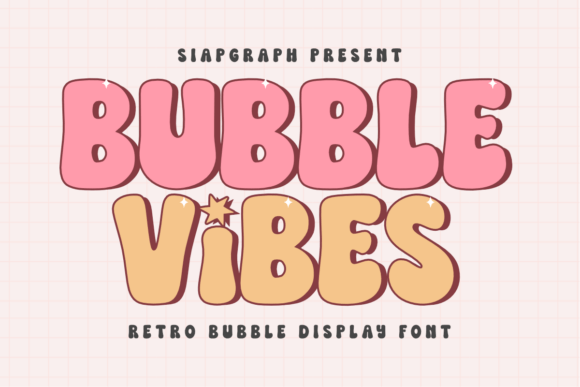
Get Ready to Groove with the Bubble Vibes Font
Do you ever find yourself stuck in a creative rut, yearning for a spark of inspiration to breathe new life into your designs? For many of us, a dash of retro flair can be just the ticket to reigniting our passion and imagination. That’s where the enchanting Bubble Vibes Font comes in – a captivating bubble retro display font that effortlessly transports your designs back to the vibrant and cheerful era of the 60s and 70s.
With its plump, rounded, and wonderfully soft letterforms, the Bubble Vibes Font creates a delightful three-dimensional effect, making your text pop with an infectious sense of fun and nostalgia. This versatile font is perfect for infusing a dose of groovy energy and playful charm into a wide array of creative projects, from stickers and planner elements to eye-catching t-shirt designs and personalized products.
Bubble Vibes Font Key Features
- Font Family: Bubble Vibes Font is a sans-serif font family designed to evoke a playful and bubbly atmosphere.
- Character Count: The font family includes a wide range of characters, including uppercase and lowercase letters, numbers, and punctuation marks.
- Unique Characteristics: The font features a unique blend of rounded and geometric shapes, creating a fun and playful feel that is perfect for creative and whimsical designs.
Bubble Vibes Font Review
I recently had the chance to work with the Bubble Vibes Font, and I must say it’s an interesting choice. Here’s my honest take on what works and what doesn’t.
- Casual and playful vibe: The font’s bubbly design makes it perfect for creating a fun and relaxed atmosphere in your designs.
- Easy to read: Despite its playful nature, the font is surprisingly easy to read, even at smaller font sizes.
- Highly customizable: The font comes with a range of styles and weights, making it easy to find the perfect fit for your project.
- Not ideal for formal designs: The font’s playful design may not be suitable for formal or professional projects.
- Limited versatility: While the font is highly customizable, it may not be the best choice for complex or technical content.
Overall, I’d say the Bubble Vibes Font is a great choice for casual designs or projects where you want to add a playful touch. However, it may not be the best fit for more formal or technical projects. With its high level of customization and easy readability, it’s definitely worth considering for the right project.
The Bubble Vibes Font is ideal for creating playful, whimsical designs. Use it for:
- Social media graphics
- Party invitations
- DIY craft projects
Remember to experiment with different font sizes, colors, and combinations to get the most out of the Bubble Vibes Font.
Alternatives to Bubble Vibes Font
Great Vibes Font is a beautiful, elegant script font that is perfect for creating a sense of sophistication and refinement. It is ideal for use in invitations, wedding stationery, and other high-end designs. Great Vibes Font has a more refined and polished look compared to Bubble Vibes Font, making it suitable for formal events and corporate branding.
Alex Brush Font is a handwritten font that is designed to evoke a sense of playfulness and creativity. It is perfect for use in casual designs, such as food labels, craft beer labels, and social media graphics. Alex Brush Font has a more relaxed and casual look compared to Bubble Vibes Font, making it suitable for everyday use and creative projects.
Carolyna Pro Font is a modern, elegant script font that is perfect for creating a sense of luxury and sophistication. It is ideal for use in high-end designs, such as fashion branding, luxury packaging, and premium products. Carolyna Pro Font has a more refined and polished look compared to Bubble Vibes Font, making it suitable for formal events and high-end branding.
Lato Font is a sans-serif font that is designed to be highly legible and versatile. It is perfect for use in a wide range of designs, from corporate branding to digital interfaces. Lato Font has a more clean and modern look compared to Bubble Vibes Font, making it suitable for everyday use and digital products.
What is the recommended font size for optimal readability with the Bubble Vibes Font?
The recommended font size for optimal readability with the Bubble Vibes Font is between 12pt and 24pt. However, this may vary depending on the specific application, screen resolution, and individual user preferences. It’s always a good idea to test different font sizes to ensure the best possible readability for your specific use case.